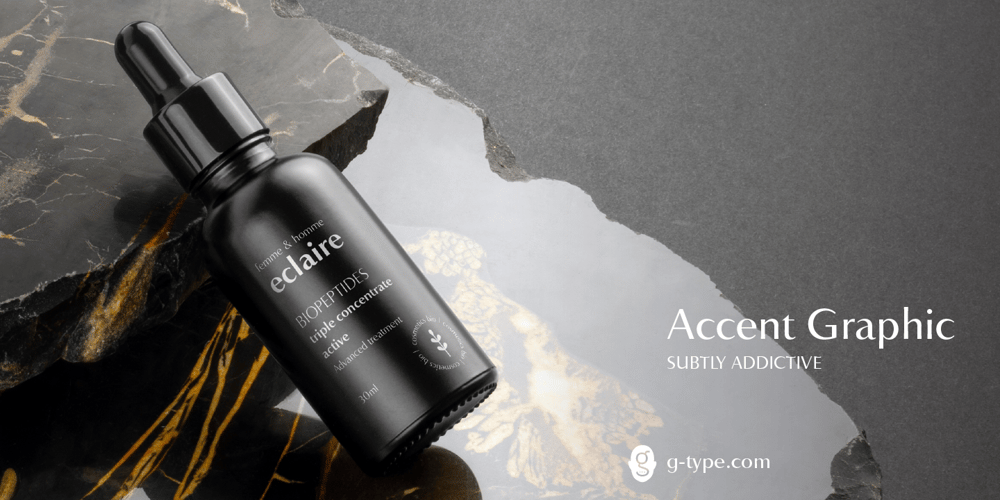
Accent Graphic
Accent Graphic font
Accent Graphic Font Family was designed by Nick Cooke and published by G-Type. Accent Graphic contains 3 styles and family package options. Accent Graphic was developed as the corporate typeface for a London design consultancy in 1997. The starting point was the word ‘accent’ in lower case. It is essentially a sans typeface with the thick/thin contrast of a serif and is the only family in the G-Type collection that was designed for a client.